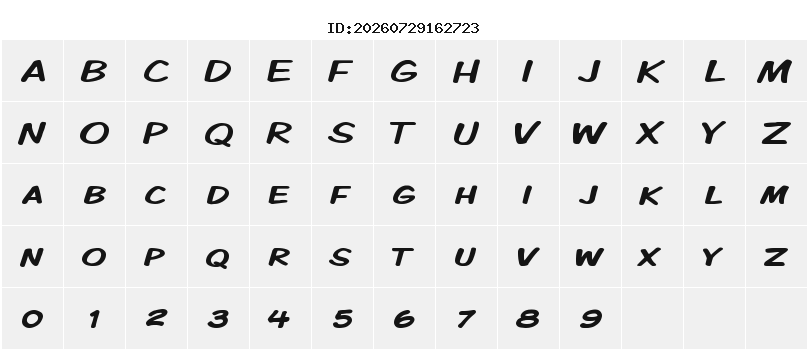
Komika Display Kaps Wide Preview
• Font Name: Komika Display Kaps Wide
• Full Font Name: Komika Display Kaps Wide
• Designer: WolfBainX
About Komika Display Kaps Wide.ttf
Komika Display Kaps Wide.ttf is a modern, elegant sans-serif font designed for ultimate readability and visual harmony. Perfect for branding, headlines, web design, and print materials.